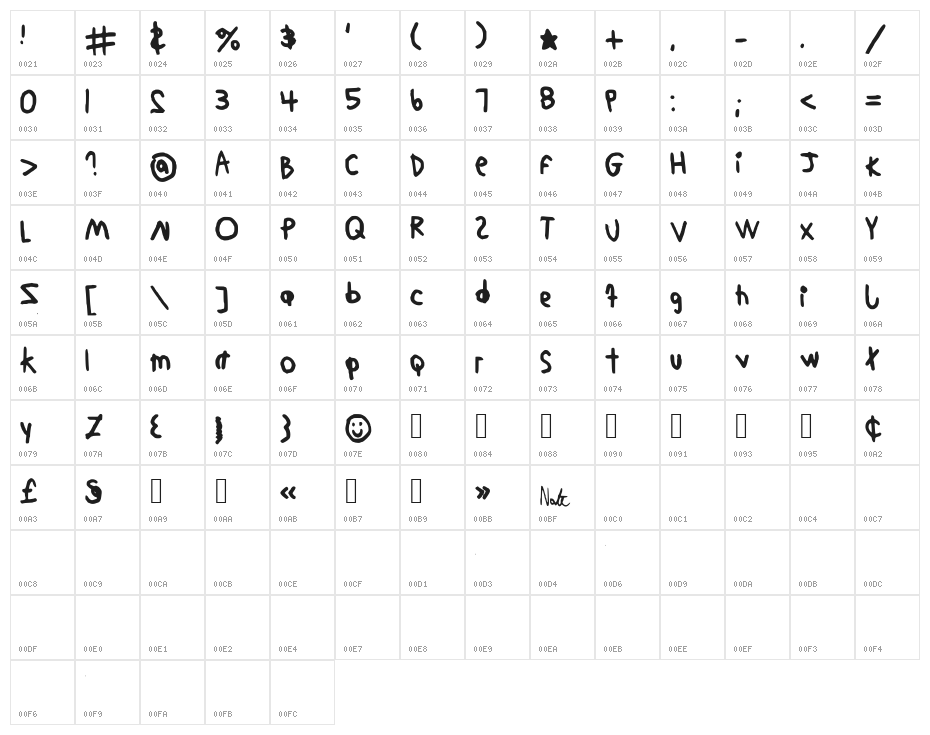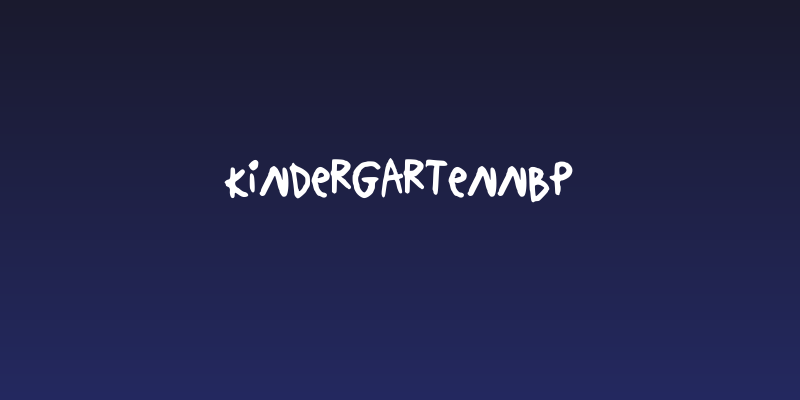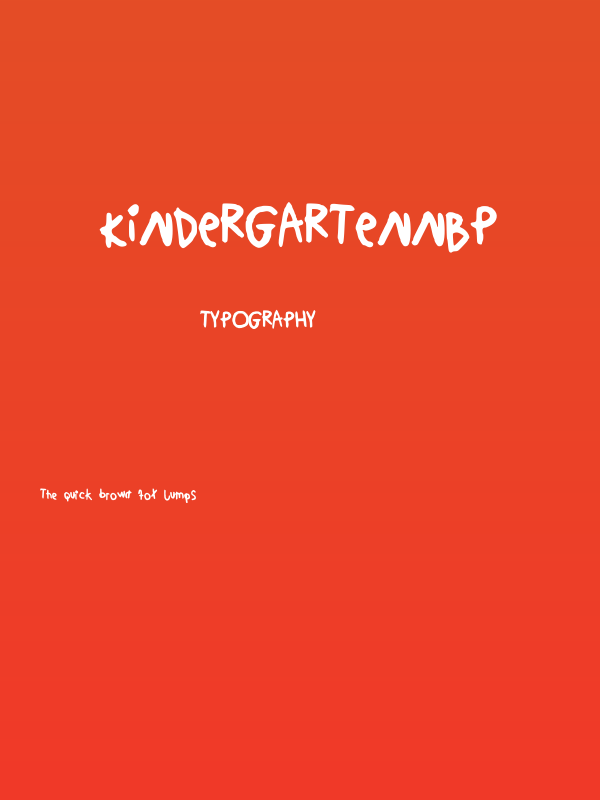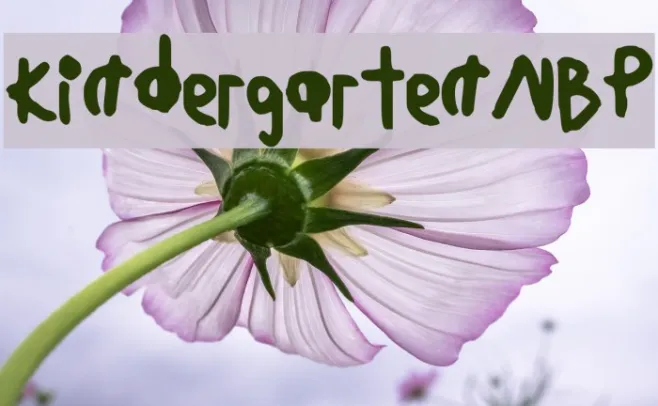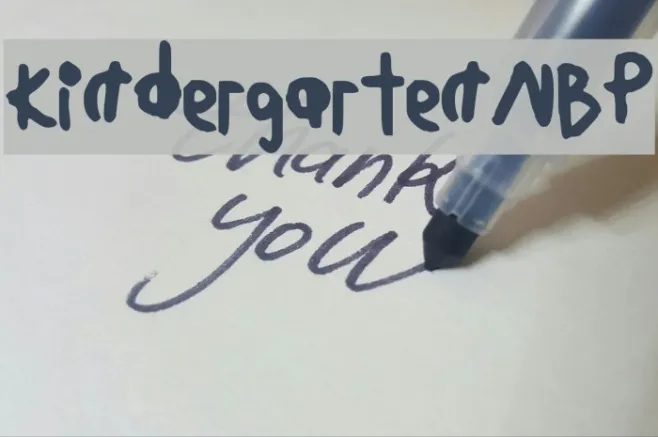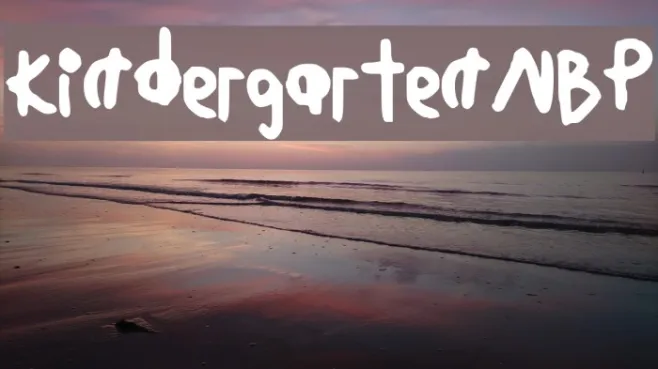
KindergartenNBP Font
KindergartenNBP Description
This playful and whimsical font captures the essence of youthful creativity, reminiscent of a child's handwriting. The letters are bold and slightly irregular, adding a sense of spontaneity and charm. Each character is distinct, with rounded edges and a casual, friendly appearance. The uppercase and lowercase letters maintain a consistent style, while the numbers and special characters complement the overall design. This font exudes a sense of fun and innocence, making it ideal for projects that aim to convey a lighthearted and approachable tone.
| Proposed Projects | Ideal for children's books, educational materials, playful branding, and creative invitations. |